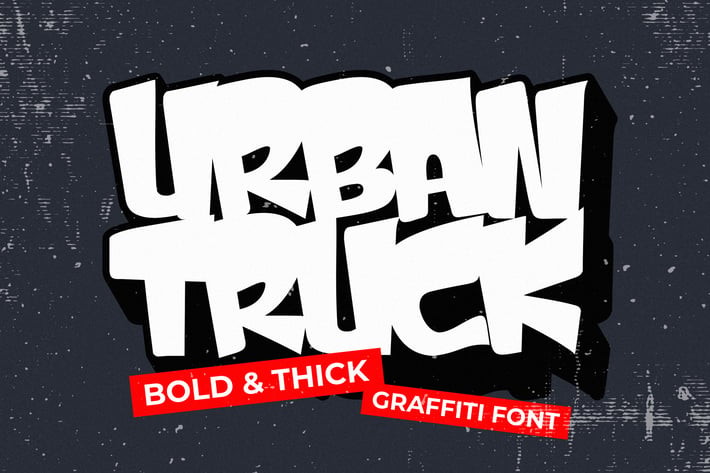
Urban Truck - Thick Graffiti Font
Urban Truck is a bold and commanding graffiti font designed to bring a raw, urban vibe to your projects. With its thick strokes and rugged appearance, this font captures the essence of street art and urban culture.
π Bold and Striking: The thick, heavy lettering of Urban Truck delivers a strong visual impact, perfect for designs that need to stand out. Its bold style makes it ideal for posters, headlines, branding, and any project that demands attention.
π¨ Street-Inspired: Drawing from graffiti art, Urban Truck brings the energy and edge of the streets to your design work. Its rough, hand-drawn aesthetic adds a layer of authenticity and attitude, making it a go-to for urban-themed projects.
π₯ Versatile Use: Whether you're designing for apparel, album covers, or social media, Urban Truck adapts effortlessly to any context where boldness and creativity are needed. Its thick, dynamic strokes ensure your message is delivered with maximum impact.
Urban Truck is more than just a fontβit's a bold statement piece, perfect for anyone looking to infuse their designs with urban flair and street-inspired energy.